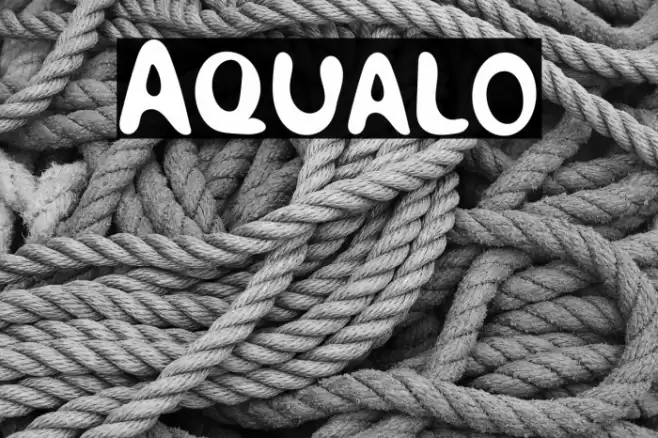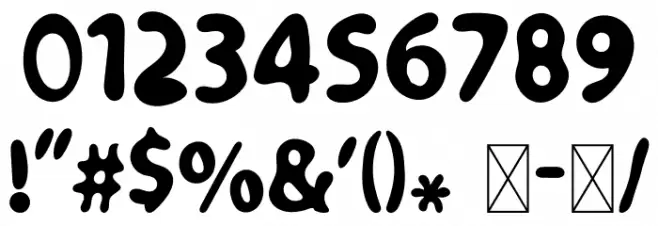
Aqualo Font
Aqualo Description
This playful and bold font features rounded, bubbly characters that convey a sense of fun and approachability. The letters are thick and have a consistent stroke width, giving them a strong presence on the page. The overall design is smooth and flowing, with a slight tilt that adds a dynamic feel. The font includes both uppercase and lowercase letters, numbers, and a variety of special characters, making it versatile for different uses. Its unique style is reminiscent of hand-drawn lettering, making it perfect for projects that require a personal touch.
A playful, bold font with rounded, bubbly characters and a hand-drawn feel from Cartoon fonts.
- Proposed Projects: Ideal for children's books, playful branding, posters, and social media graphics.
- Overall Style: Playful, Fun